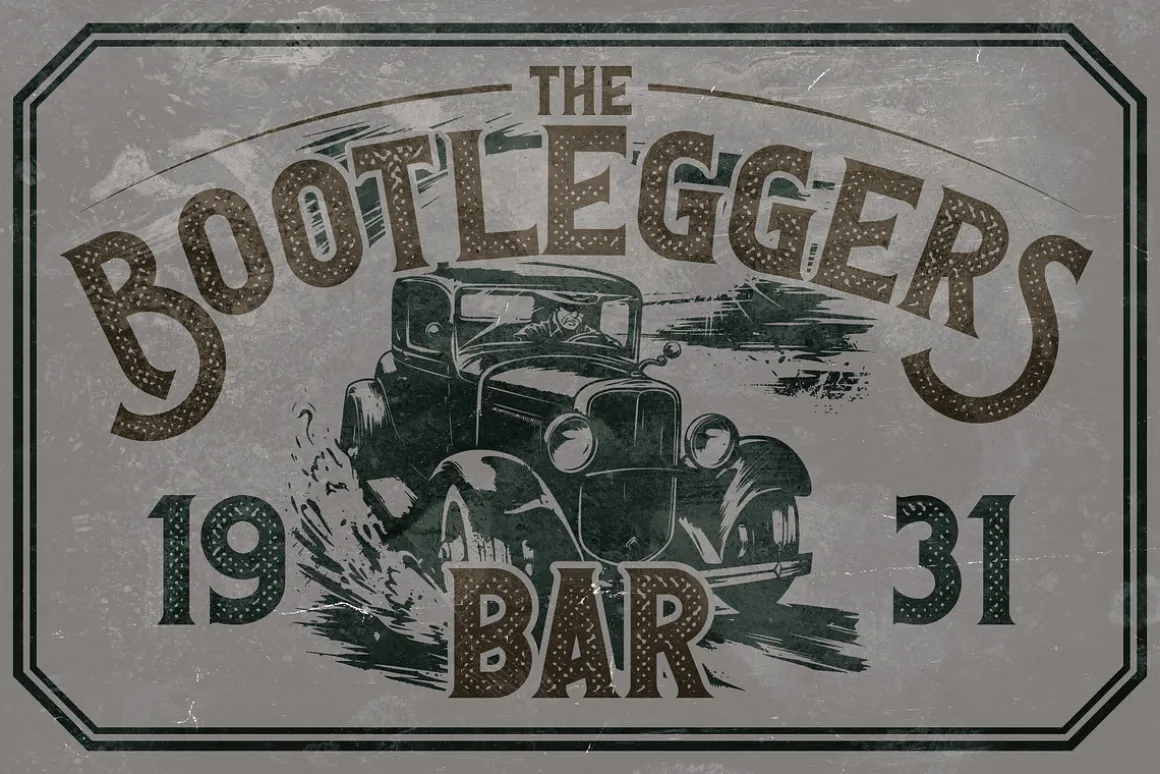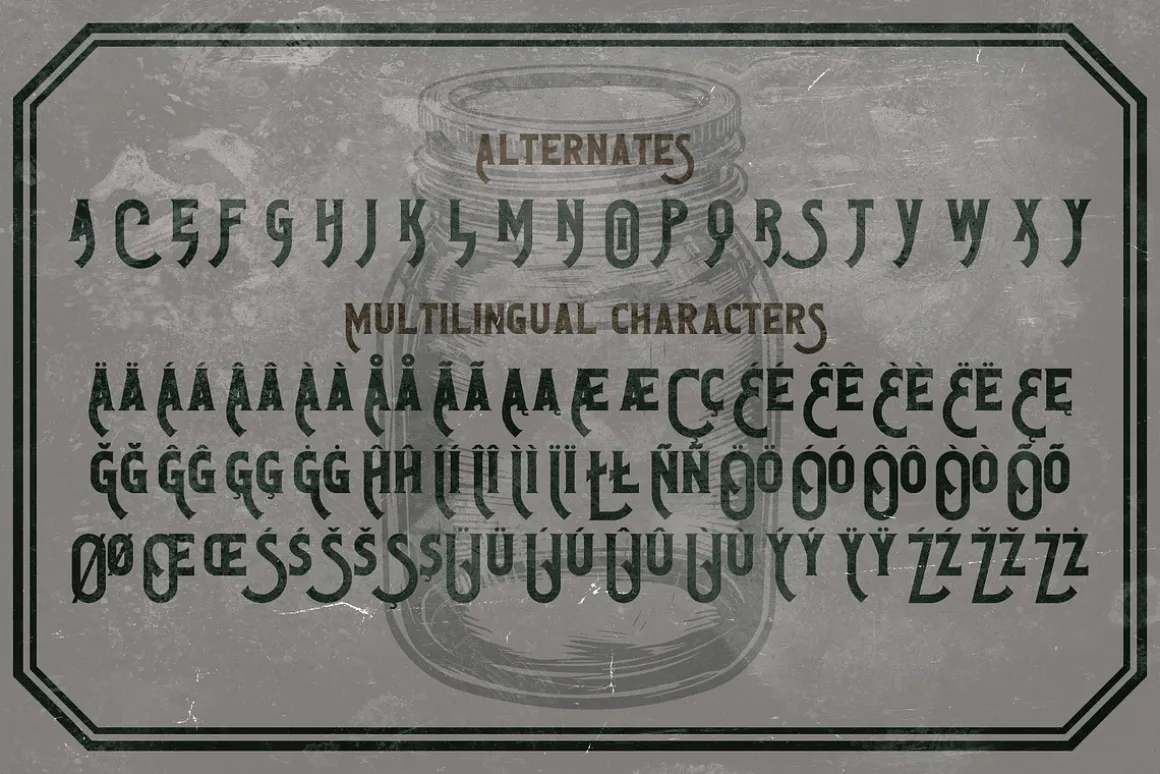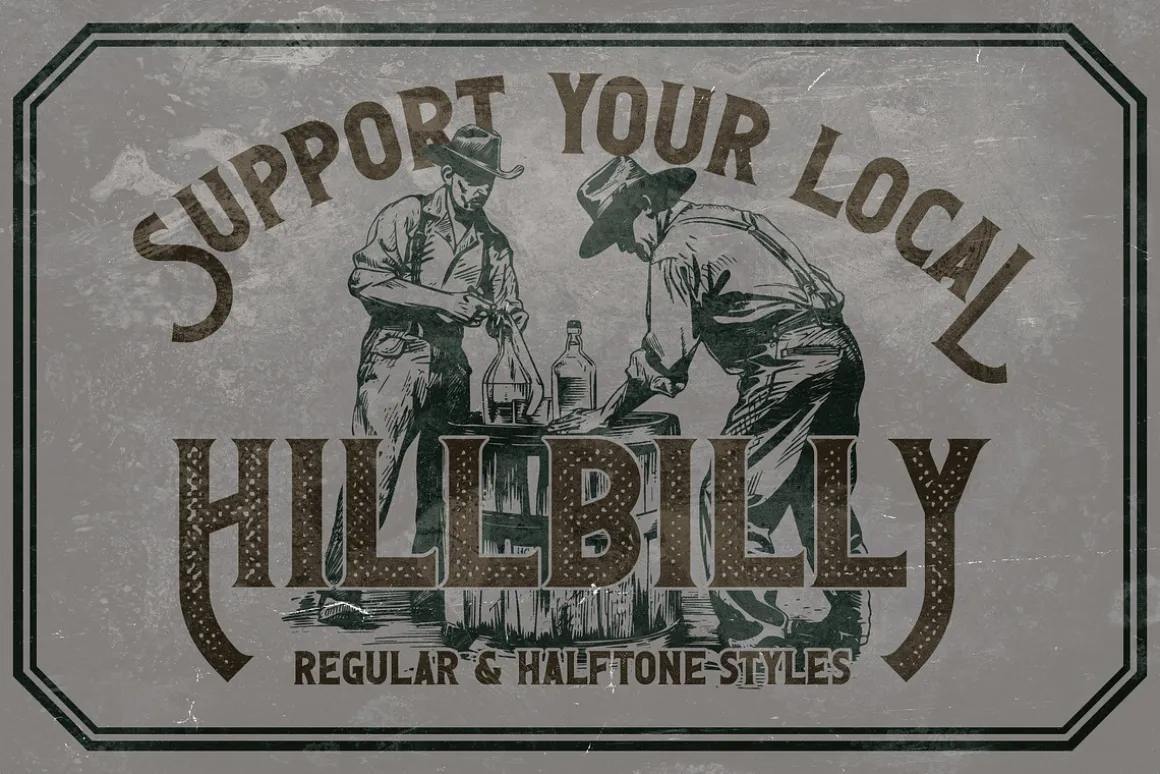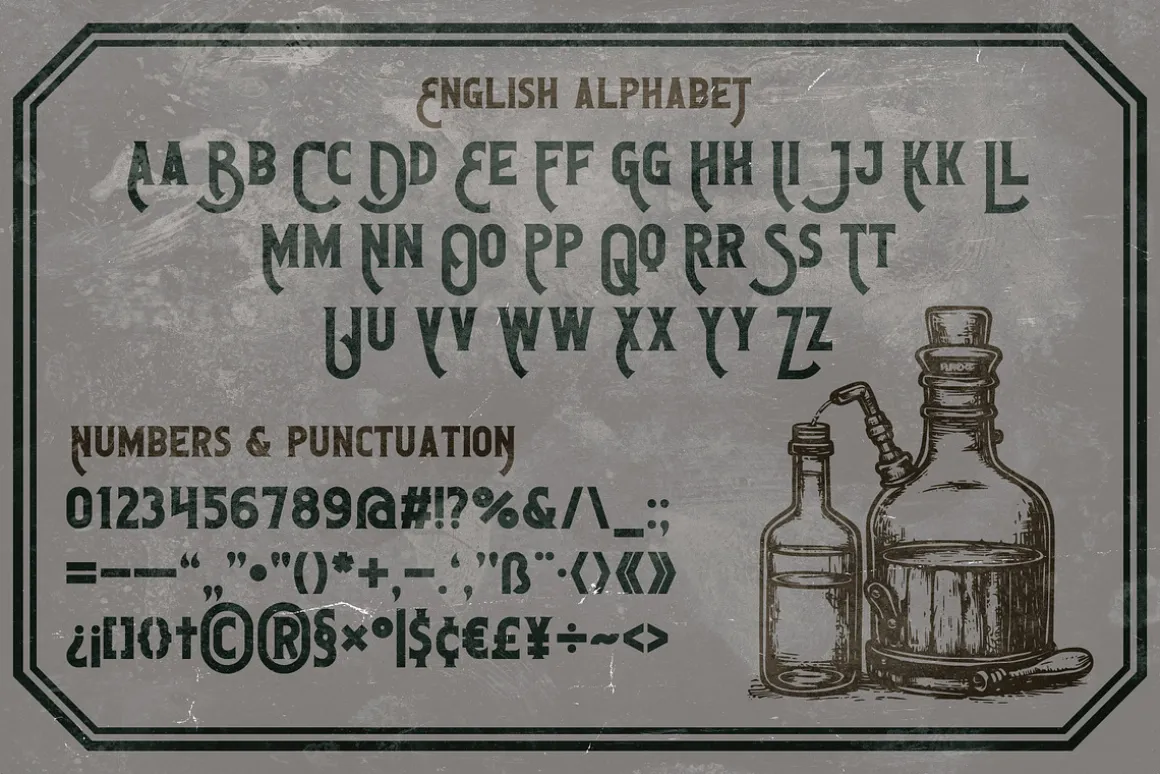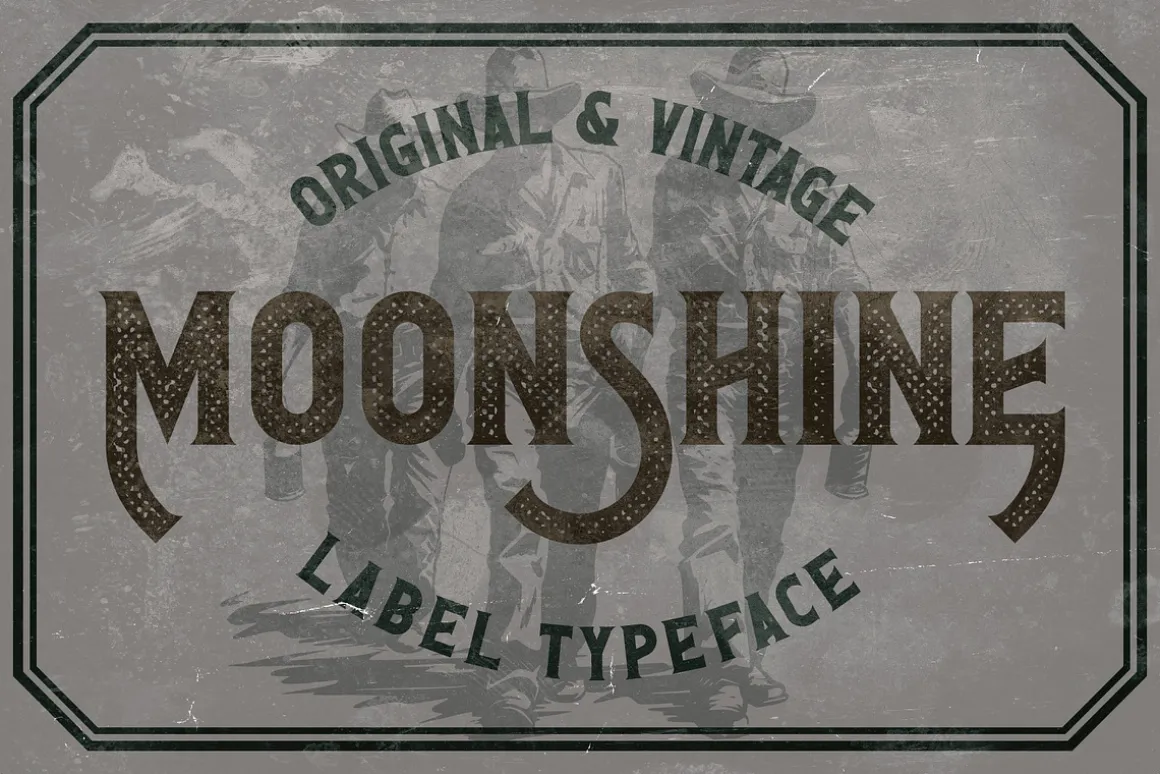
Unique, creative, vintage, retro, monogram & label serif font. Comes with multilingual support & alternate characters + halftone font version – great for your new logo, monogram or branding project.
- 2 font styles – Regular & Halftone
- Multilingual support & alternate characters
- Great for retro or vintage style branding projects